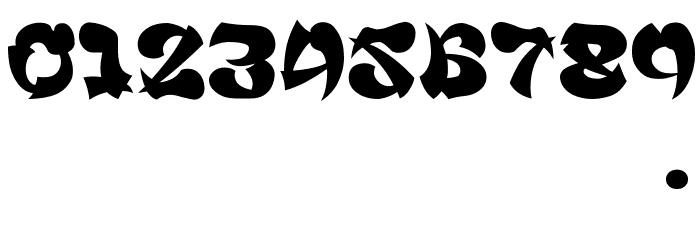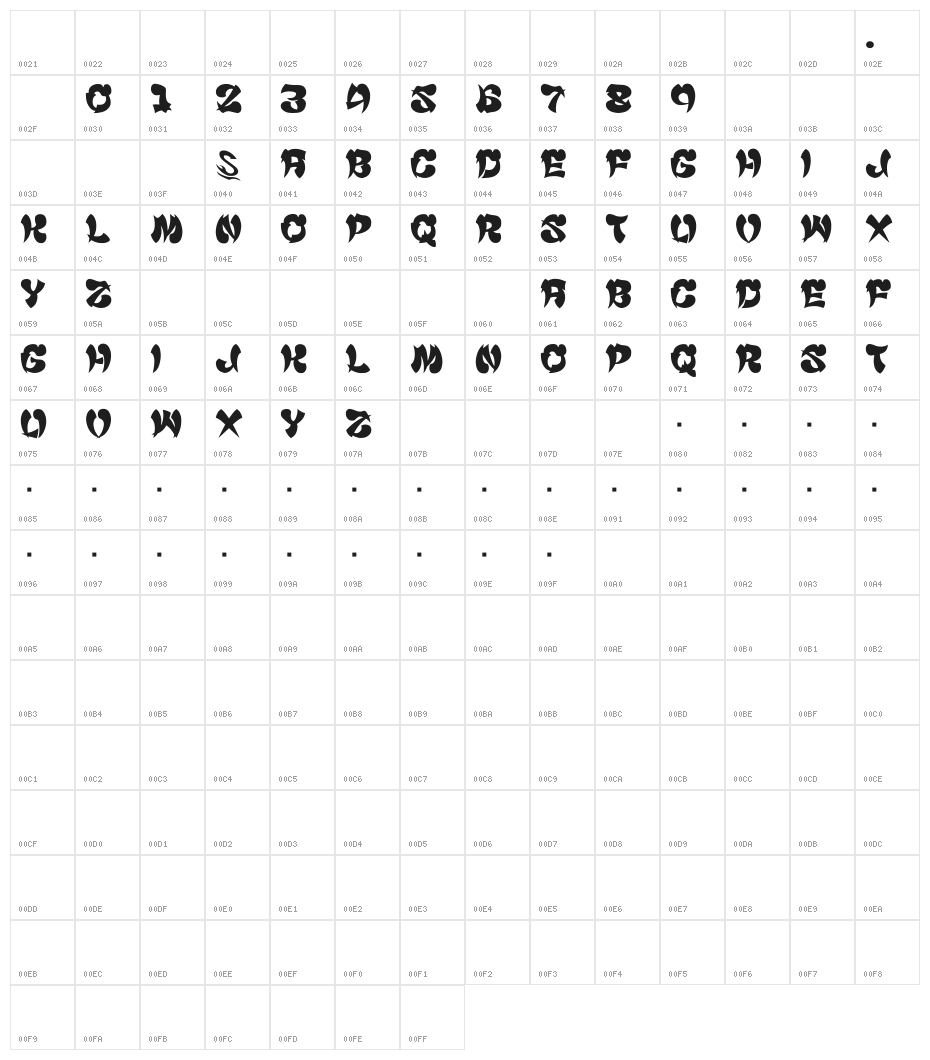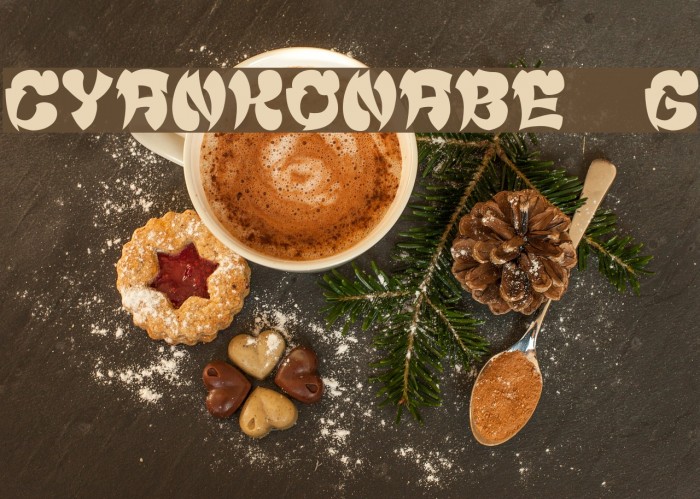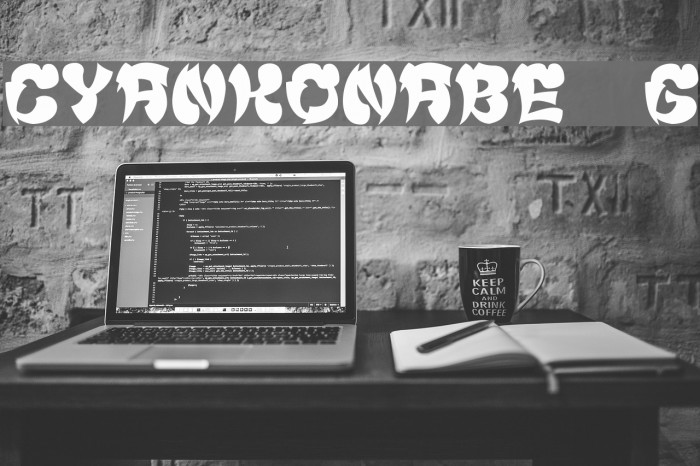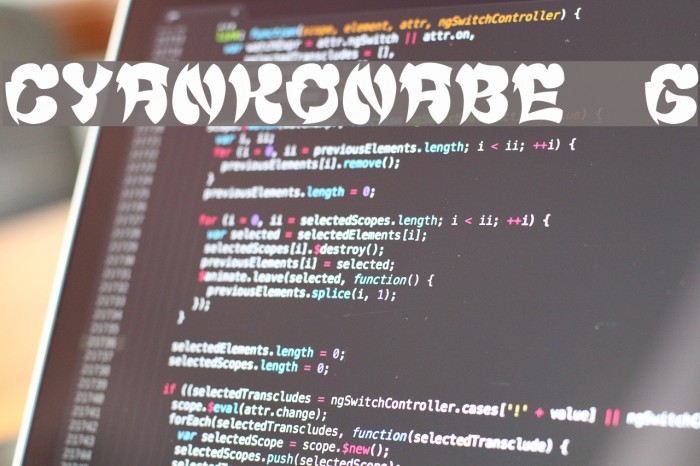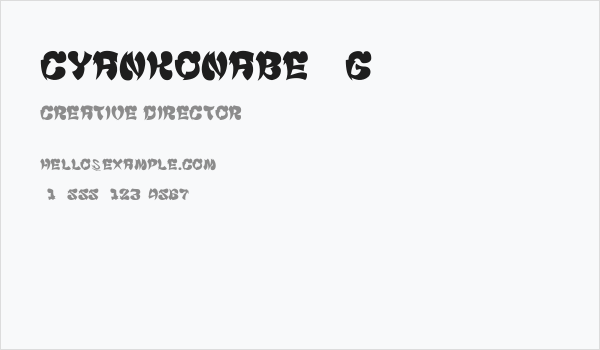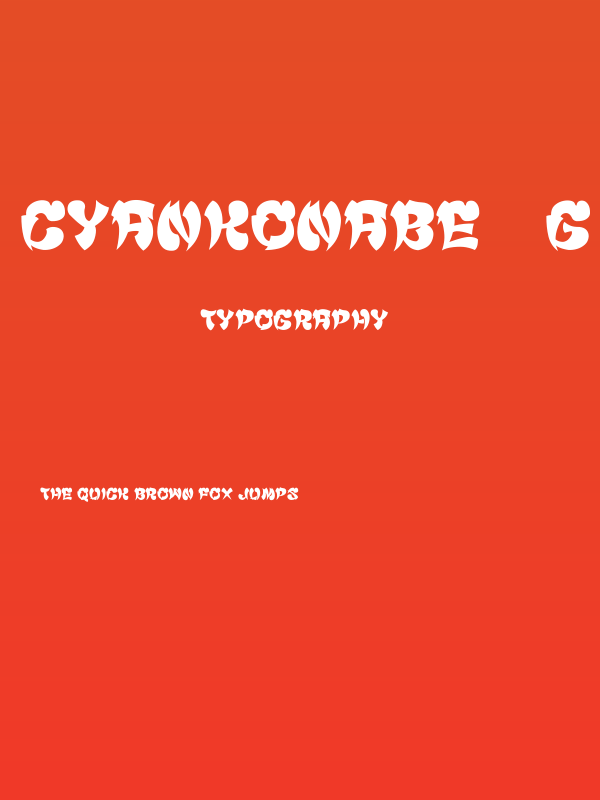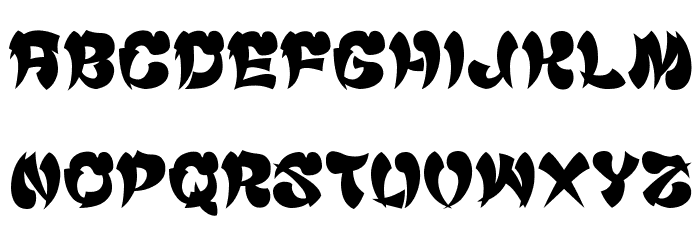
Cyankonabe__G Font
Cyankonabe__G Description
This font features a bold and dramatic style with sharp, angular edges and a distinct Gothic influence. The characters are heavily stylized, with exaggerated curves and pointed serifs that give it a unique, almost aggressive appearance. The uppercase and lowercase letters maintain a consistent design, enhancing its cohesive look. The numbers and special characters follow the same aesthetic, ensuring uniformity across all glyphs. This font's striking design makes it ideal for projects that require a strong visual impact.
Overall StyleGothic, Decorative
Proposed ProjectsPerfect for album covers, posters, logos, and any project requiring a bold, eye-catching typeface.